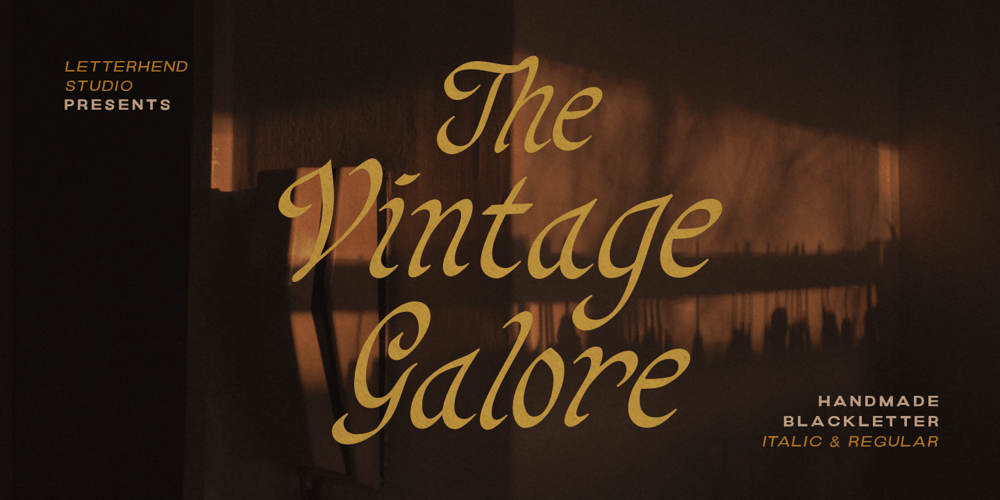
Vintage Galore Font Family was designed by Hendry Juanda and published by Letterhend. Vintage Galore contains 2 styles and family package options. Vintage Galore is a handmade blackletter font font with casual & classic feels. This font will bring you back to 90s feel.This font perfectly made to be applied especially in logo, and the other various formal forms such as invitations, labels, logos, magazines, make up, stationery, novels, labels or any type of advertising purpose.Features : Uppercase & lowercase, Numbers and punctuation, Alternates & Ligatures, Multilingual & PUA encoded